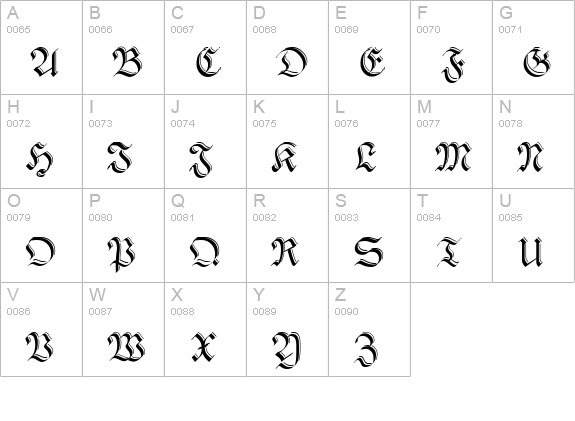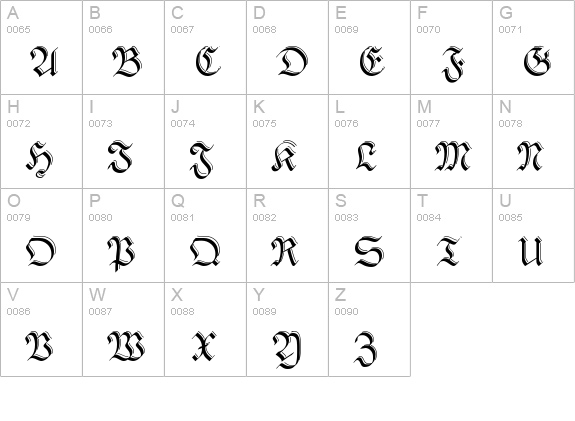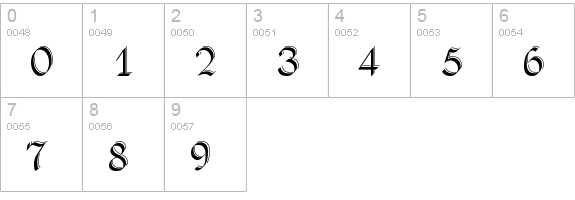
PhederFrackShadowed Font Details
Introducing PhederFrackShadowed, a stunningly unique and captivating font that will add a touch of mystery and intrigue to any design project. With its intricate and intricate shadowed details, this font exudes an air of sophistication and elegance, making it perfect for eye-catching logos, striking headlines, or stylish invitations. What sets PhederFrackShadowed apart is not only its visually stunning appearance but also its versatility. This font seamlessly blends traditional elegance with a modern twist, making it suitable for a wide range of creative endeavors. Whether you're designing a vintage-inspired poster, a contemporary website, or an elegant wedding invitation, PhederFrackShadowed will effortlessly adapt to your vision and elevate your design to new heights. One of the best features of PhederFrackShadowed is that it is freely available to download at FontsMarket.com. Yes, you read that right - this awe-inspiring font can be yours at no cost! We believe that great design should be accessible to all, which is why we are thrilled to offer this font as a free download. Now you can bring your creative ideas to life without breaking the bank. With PhederFrackShadowed, you have the freedom to unleash your imagination and experiment with various design concepts, knowing that this remarkable font is at your fingertips, ready to enhance your projects with its captivating charm. So don't wait any longer - head over to FontsMarket.com and download PhederFrackShadowed today. Unleash your creativity, make a statement, and captivate your audience with this stunning font that combines elegance, versatility, and the best part - it's free!